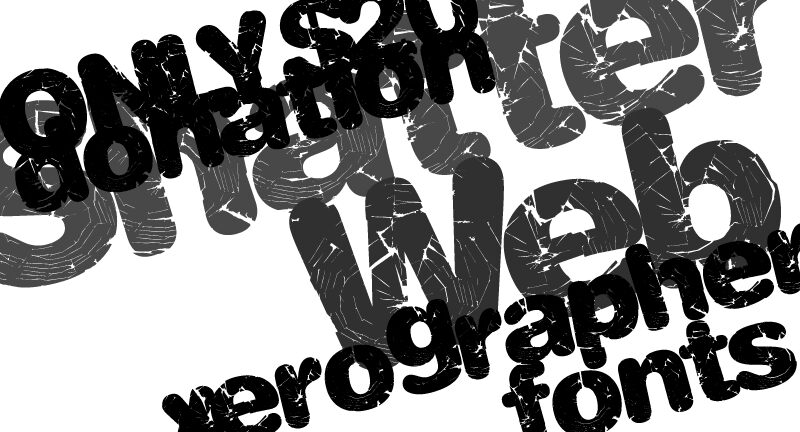
ShatterWeb by Xerographer Fonts is a free eroded display font with massive, broad, tightly packed letters and a blunt, rounded silhouette. Uneven scratches and chipped cuts give every stroke a scraped-down surface.
It can turn a title into a battered graphic emblem for action posters, album covers, and skate merchandise. The forceful weight and fractured texture suit designers and audiences drawn to underground music, extreme sports, and rough-edged street graphics.